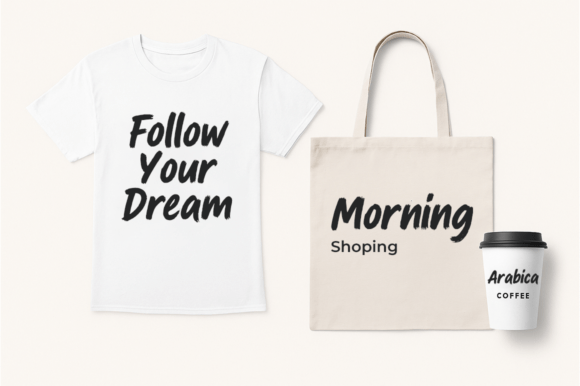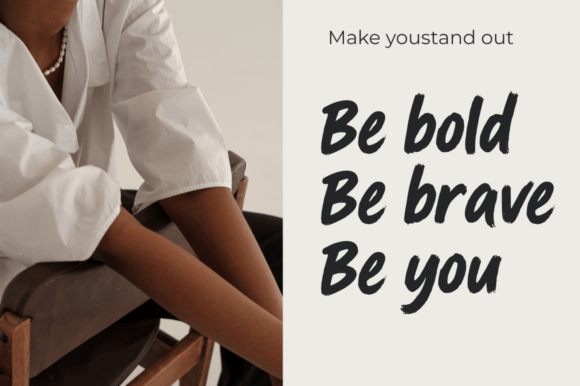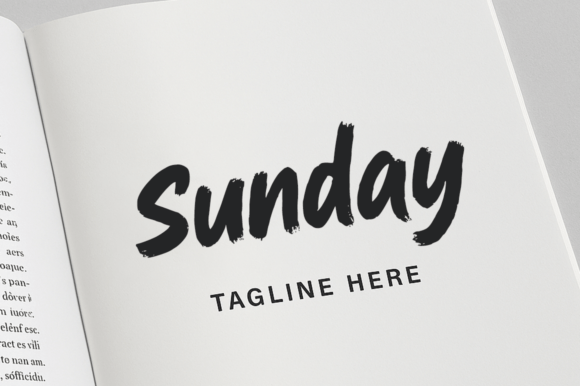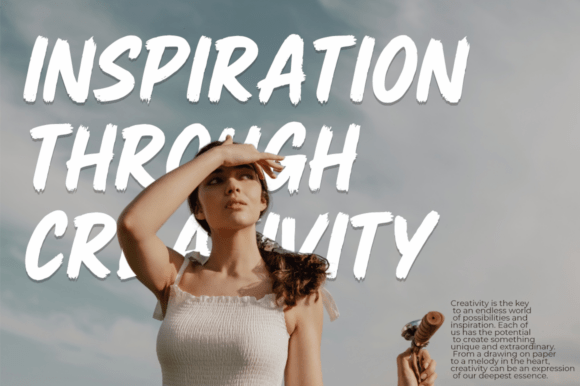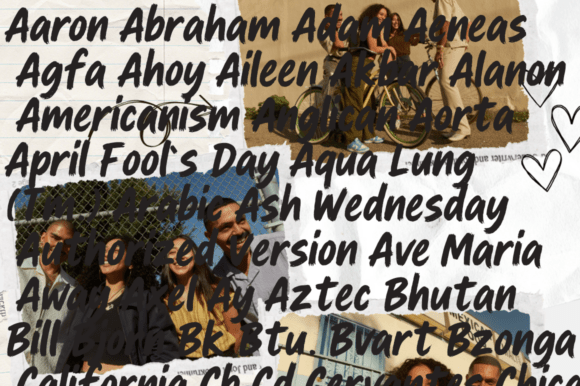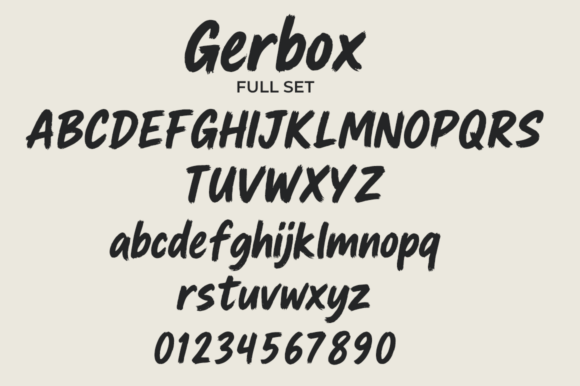
Unleash the Power of Gerbox Font: Elevate Your Designs with Dynamic and Bold Splendor
In the realm of typography, few fonts manage to strike a balance between modern sophistication and raw, organic charm. Gerbox Font, however, achieves this delicate equilibrium with remarkable finesse. This brush font is a game-changer for designers and crafters seeking to infuse their projects with a contemporary, hand-crafted aesthetic. In this article, we’ll explore the unique characteristics of Gerbox and how it can elevate your designs across various applications.
The Essence of Gerbox: A Modernized Handwritten Stroke
Gerbox is more than just a font; it’s an experience. It embodies the spirit of modernized handwritten strokes, bringing a sense of dynamism and boldness to your designs. The font’s creator has meticulously crafted Gerbox to convey a sense of energy and movement, making it perfect for projects that demand attention. Whether you’re working on sophisticated branding, attractive packaging, or eye-catching editorial layouts, Gerbox is the ideal choice.
Fusing Organic Textures with Structured Layouts
One of the standout features of Gerbox is its ability to fuse the raw charm of organic textures with the clarity of a structured layout. This unique blend allows designers to create visually stunning projects that exude both modernity and character. The font’s organic texture adds a touch of humanity, while its structured layout ensures legibility and coherence. This synergy makes Gerbox an incredibly versatile font, suitable for a wide range of applications.
Applications of Gerbox: Endless Possibilities
Gerbox is designed to be adaptable, making it an excellent choice for various design projects. Here are some of the areas where Gerbox truly shines:
- Sophisticated Branding: Create a lasting impression with Gerbox’s bold and dynamic typography, perfect for logos, business cards, and brand identity materials.
- Attractive Packaging: Elevate your product packaging with Gerbox’s unique blend of organic and structured elements, ensuring your product stands out on store shelves.
- Contemporary Merchandise Design: From t-shirts to tote bags, Gerbox is the ideal font for creating trendy and eye-catching merchandise that resonates with modern audiences.
- Eye-Catching Editorial Layouts: Add a touch of sophistication to your editorial designs, such as magazines, newspapers, and blogs, with Gerbox’s elegant and legible typography.
- Motivational Quotes: Inspire your audience with Gerbox’s bold and dynamic typography, perfect for creating stunning quote graphics and social media posts.
Why Gerbox is a Contemporary Designer’s Best Friend
In today’s fast-paced design landscape, having a font that can keep up with your creative demands is crucial. Gerbox is attuned to the needs of contemporary designers, offering a unique combination of style, versatility, and impact. With Gerbox, you can:
- Create a lasting impression with bold and dynamic typography
- Elevate your designs with a unique blend of organic and structured elements
- Work efficiently across various design projects, from branding to editorial layouts
In conclusion, Gerbox Font is a powerful tool for designers and crafters seeking to create stunning, modern designs that convey a sense of energy and sophistication. Its unique blend of organic textures and structured layouts makes it an incredibly versatile font, suitable for a wide range of applications. Whether you’re working on branding, packaging, merchandise design, editorial layouts, or motivational quotes, Gerbox is the definitive choice for making a lasting impression. So, immerse yourself in the dynamic and bold splendor of Gerbox and take your designs to the next level.